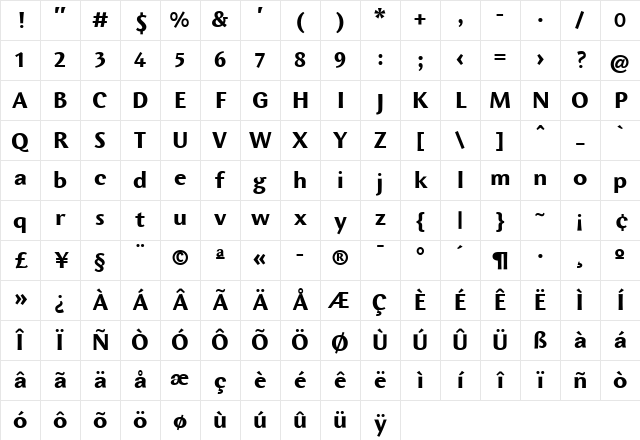
Wunderlich Bold
Foundry: Copr. Martin Wunderlich, FontShop International
Wunderlich Family
Wunderlich Bold
Design Context for Wunderlich
Wunderlich is a composed and adaptable typeface that performs quietly and consistently across a wide range of design contexts. Its bold stroke weight gives it real presence on the page.
Who designed the Wunderlich Bold font?
This font was published by Copr. Martin Wunderlich, FontShop International. Check the technical specs section for copyright and designer details.